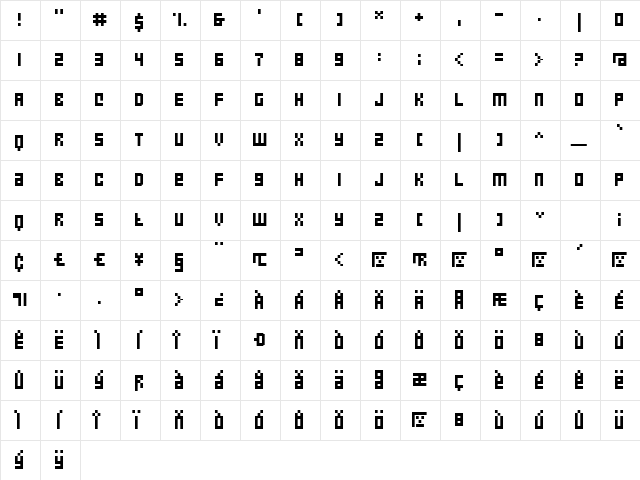
RufusOne Regular
Design Context for RufusOne Typeface
RufusOne takes a measured approach to typography — its balanced proportions and neutral character make it a reliable workhorse for both digital and print work.